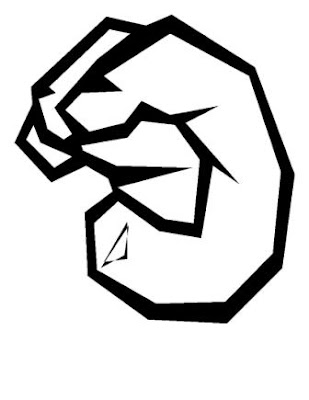
HOW TO GET “C” in appealing way that what graffiti all means. See! You even can picture as masquerade style. Hand stand for “C”, how authentic and different. This style rather unique, combination on sculpture and graffiti is good to try. May be you can try other shaped hand to carve on your graffiti. Get other experiment to done with and lay more sketch.